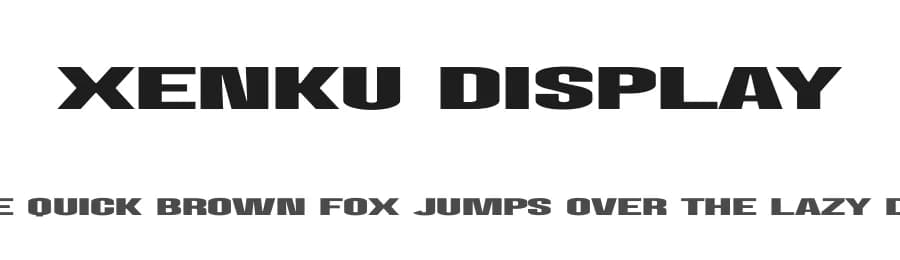
About Xenku Display Font
Xenku Is A Display Font With A Modern Sans Serif Style, Made With A More Dynamic And Flexible Impression, Making This Font Look More Futurustic.
Xenku Comes With:
- All Caps Fonts
- Number
- Symbol
- Multingual
- And Italic Version
Xenku Display Font is a versatile sans-serif font that works for both headings and body text. Pair it with a contrasting serif or slab serif font to add visual interest and a clear distinction between titles and body copy.
Xenku Display Font